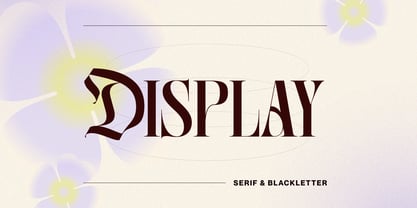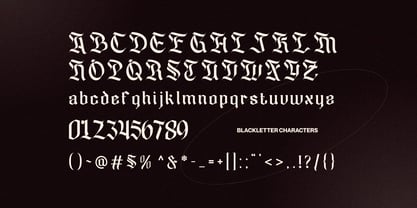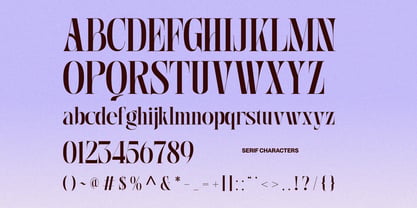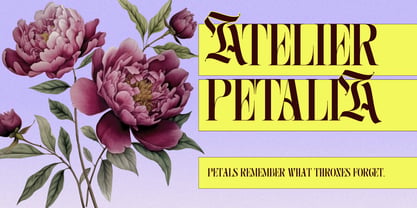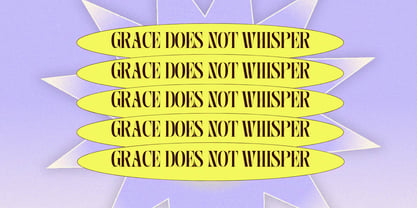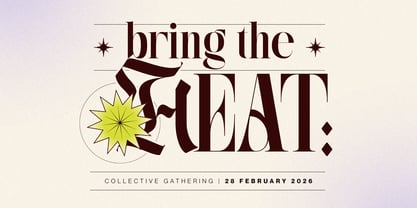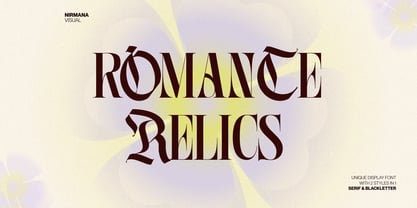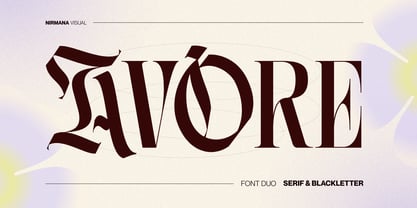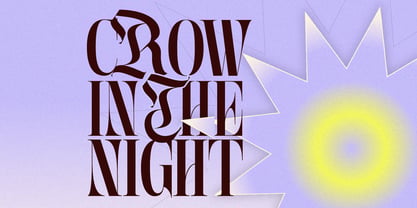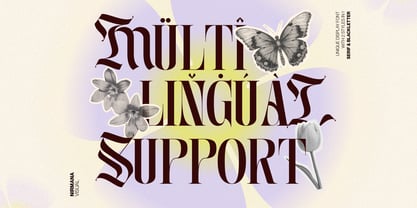
Avore
The Avore Font Family was designed by Sigit Dwipa and published by Nirmana Visual. Avore contains 2 styles and family package options. More about this family
Avore is a distinctive font duo blending refined serif elegance with expressive blackletter character. The serif style delivers clarity, balance, and modern sophistication, while the blackletter adds bold heritage and dramatic flair. Together, they create a powerful contrast and perfect for branding logos that seek a modern identity with vintage display appeal. Avore elevates promotional designs, packaging, and editorial layouts with timeless presence and striking personality.